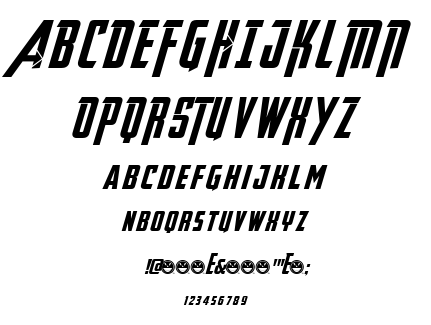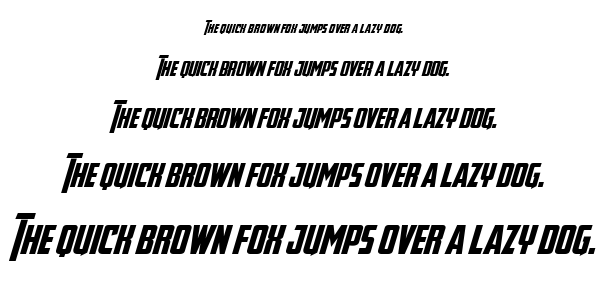
Assembled for the first time anywhere with complete Avengeance! Welcome to the newest addition to the Avengeance font family: HEROIC AVENGER.
Gather your team of avengers and craft the mightiest logo on earth with a collection of the most powerful glyphs in existence. The HEROIC variant of Avengeance will give you incredible results. Switch between normal, italic, bold and bold italic for mind-shattering results. No time for puny layouts. Grab a hammer and smack these letters around until the results are golden. Smack them a little harder and you might just see stars–or is that an arrow? Is that a giant man in red underwear? I can’t say. There’s a wasp buzzing in my ear. But alas, let no trickster delay thee. The power to craft a proud statement of graphic import is finally at hand. But first you’ll need to visit the website listed below and download my PDF KEYMAP, because some assembly is definitely required.